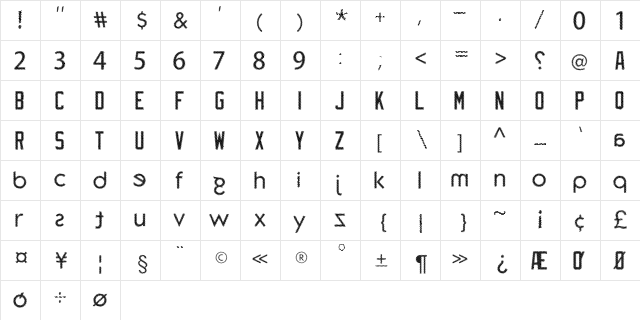
piegusq Regular
Design Context for piegusq Typeface
piegusq offers clean, dependable letterforms without strong stylistic allegiance, making it a practical choice for designers who need flexibility.